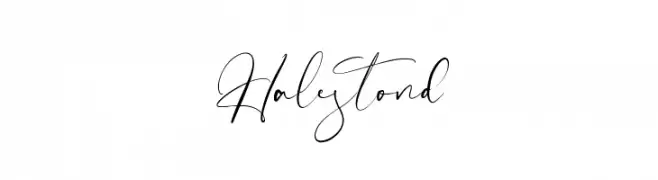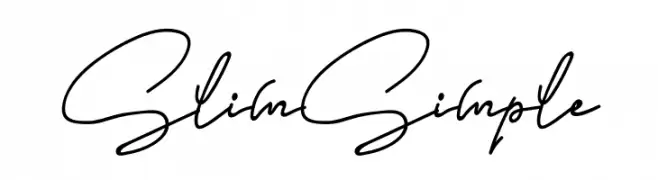
A delicate, handwritten font with thin, elegant strokes and a fluid style.
An elegant, flowing script font with high contrast and delicate swirls.
A graceful script font with flowing, cursive letters and delicate loops.
An elegant, flowing script font with graceful, delicate strokes.
A fluid, elegant handwritten font with thin, delicate strokes.
An elegant, cursive font with flowing, interconnected letters and delicate strokes.
An elegant, flowing script font with bold uppercase and delicate lowercase letters.
A delicate, handwritten font with thin, flowing lines and a whimsical touch.
A delicate and elegant script font with flowing, cursive letterforms.
An elegant, flowing script font with thin, delicate lines and graceful curves.